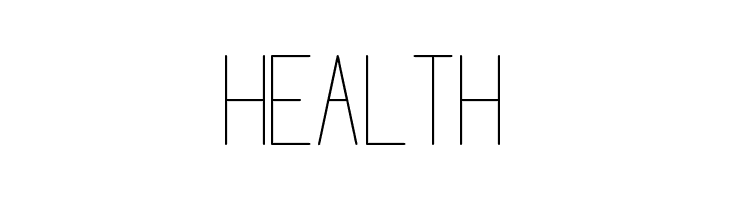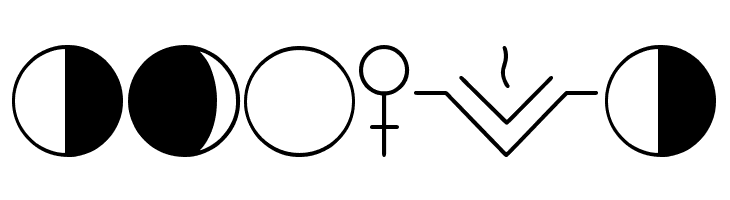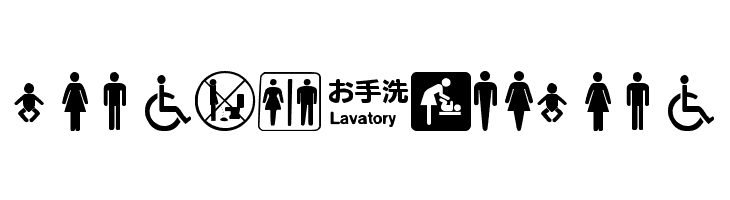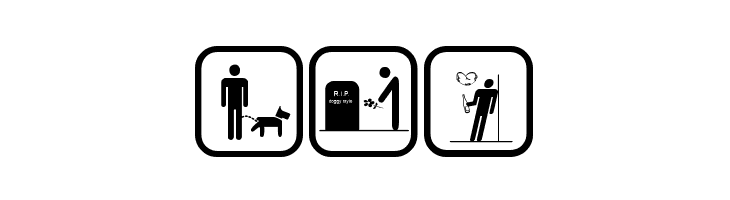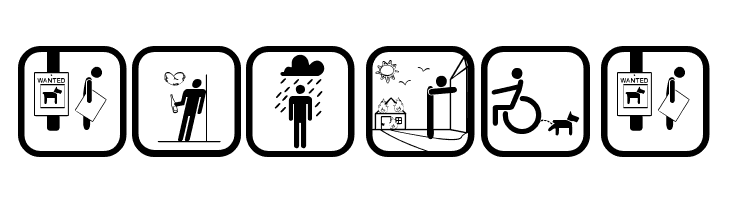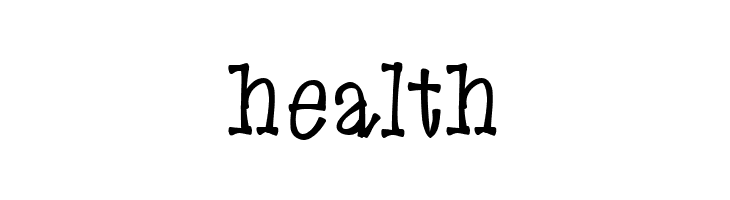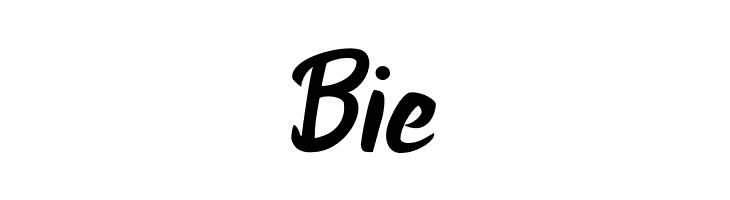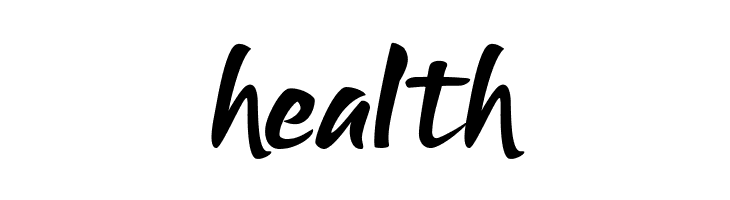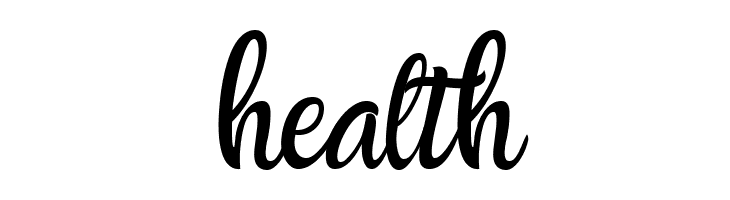
A bold, cursive font with a dynamic and elegant style.
A thin, modern font with elongated, narrow letterforms and consistent stroke width.
A geometric font featuring astrological symbols and celestial icons.
A diverse set of restroom sign icons with traditional and modern designs.
A modern, futuristic font with rounded, geometric shapes and mirrored elements.
A playful pictogram font with stick figure scenes in rounded squares.
A playful, heart-themed font with a hand-drawn feel, perfect for romantic designs.
A playful, hand-drawn font with a cartoonish and whimsical style.
A bold, expressive script font with flowing, cursive letterforms.
A playful, handwritten script font with bold, rounded uppercase and fluid lowercase letters.